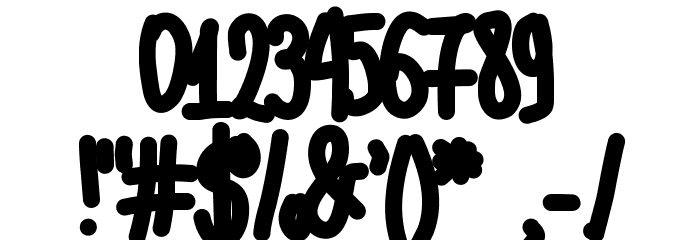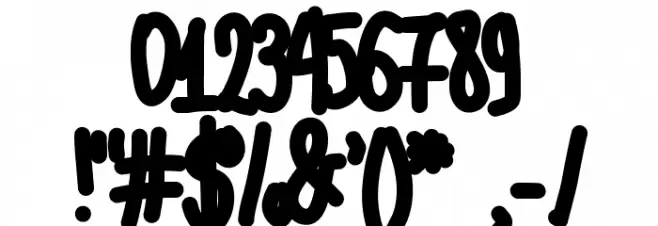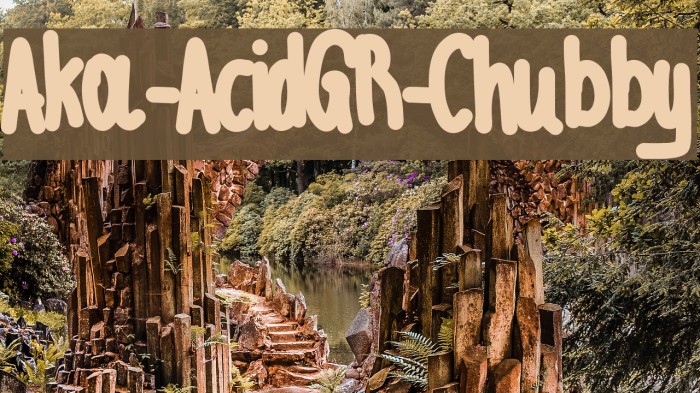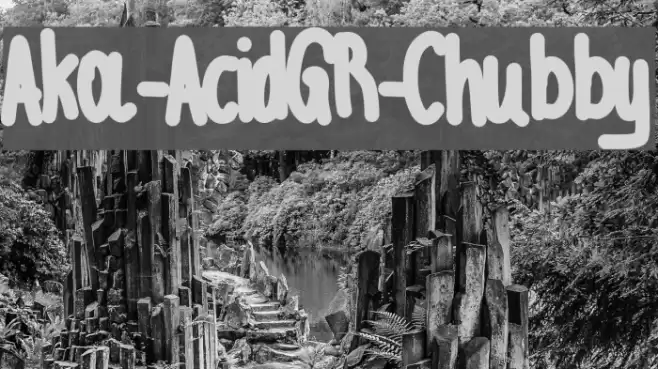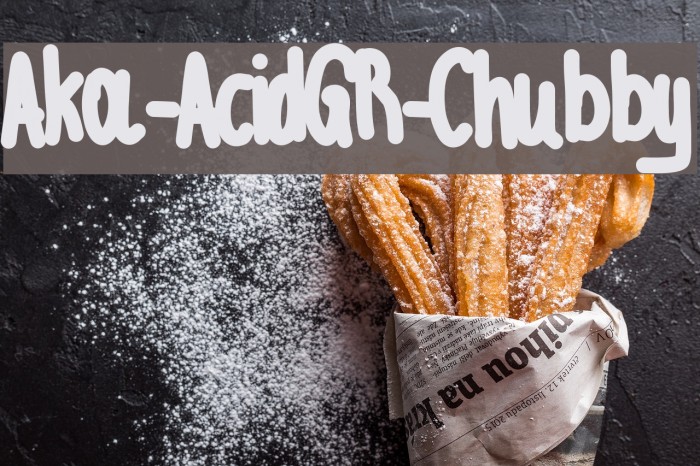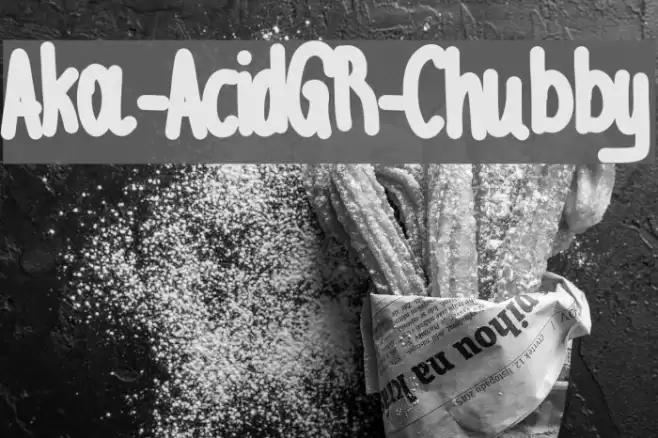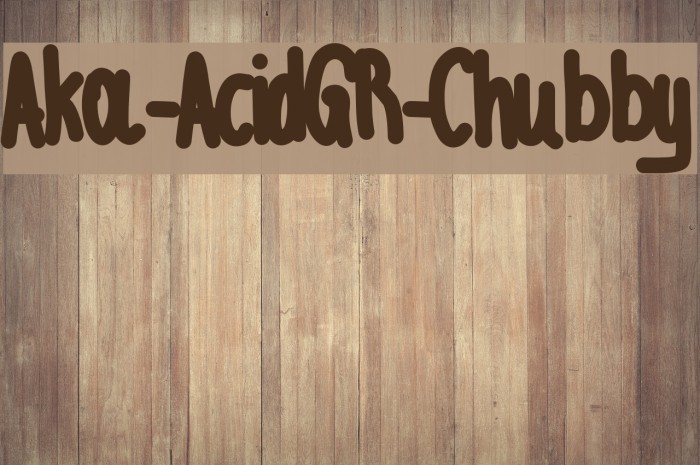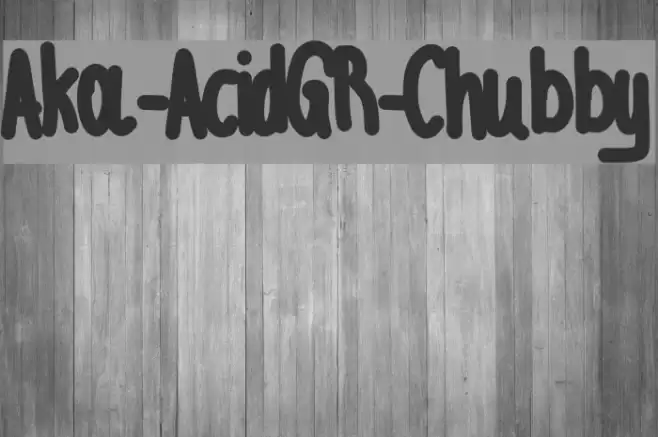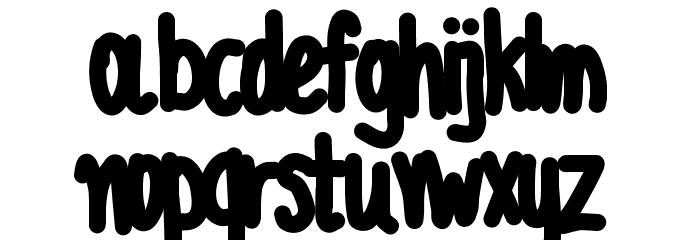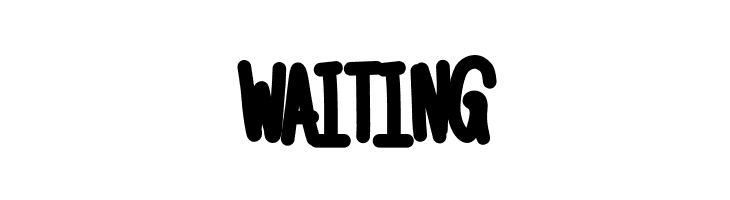
Aka-AcidGR-Chubby Font
Aka-AcidGR-Chubby Description
This playful and bold font features thick, rounded strokes that give it a chubby and friendly appearance. The characters are uniformly wide, with a consistent stroke weight that adds to its approachable and informal style. The uppercase and lowercase letters maintain a cohesive look, with slightly exaggerated curves and a whimsical touch. Numbers and special characters are equally bold and maintain the same playful aesthetic, making this font suitable for designs that require a fun and lively vibe.
A bold, playful font with thick, rounded strokes and a friendly appearance from Uncategorized fonts.
• Proposed Projects: Ideal for children's books, playful branding, posters, and social media graphics.
• Overall Style: Playful, Fun
• Use Case: Headlines, Posters, Branding